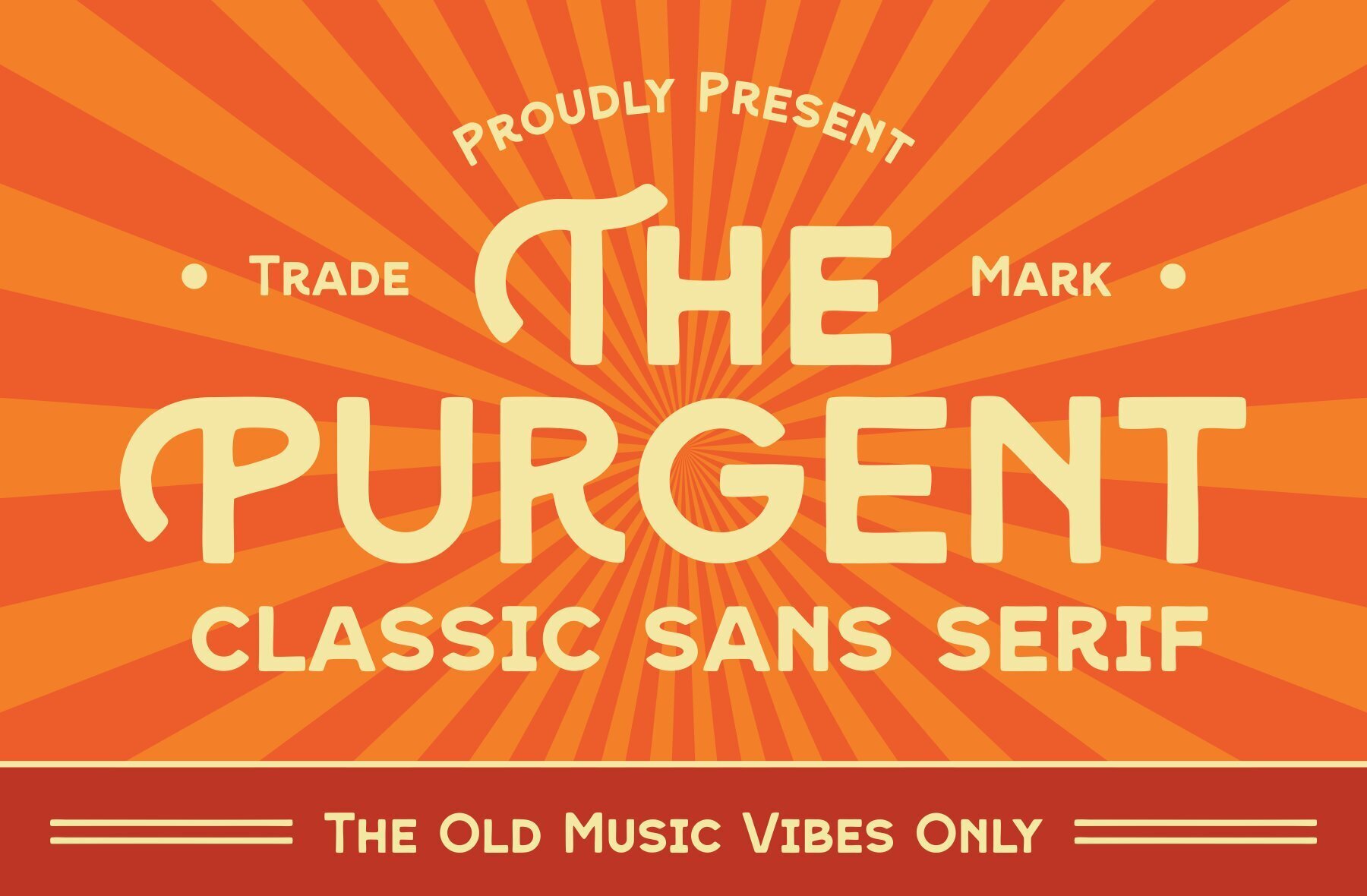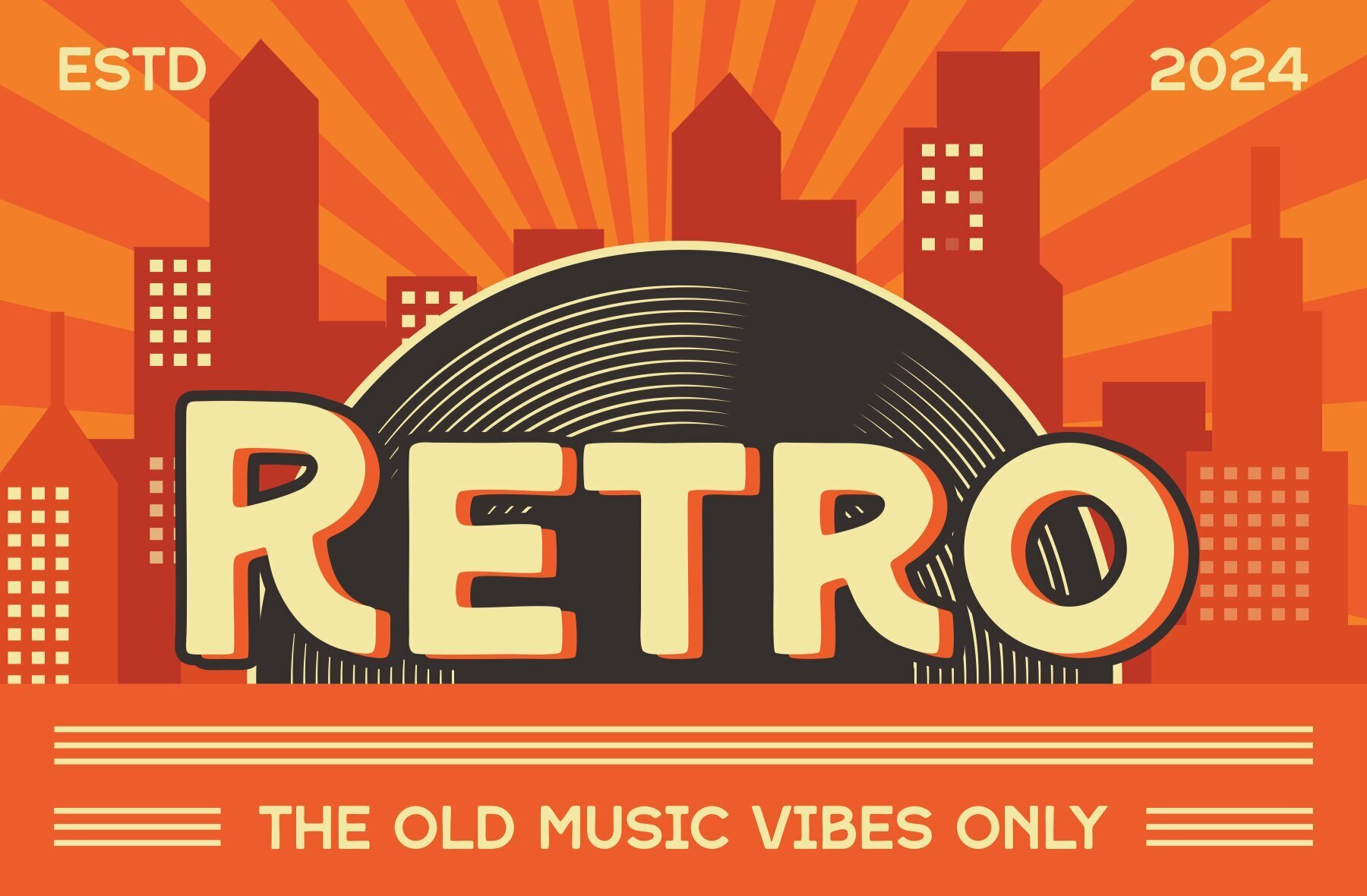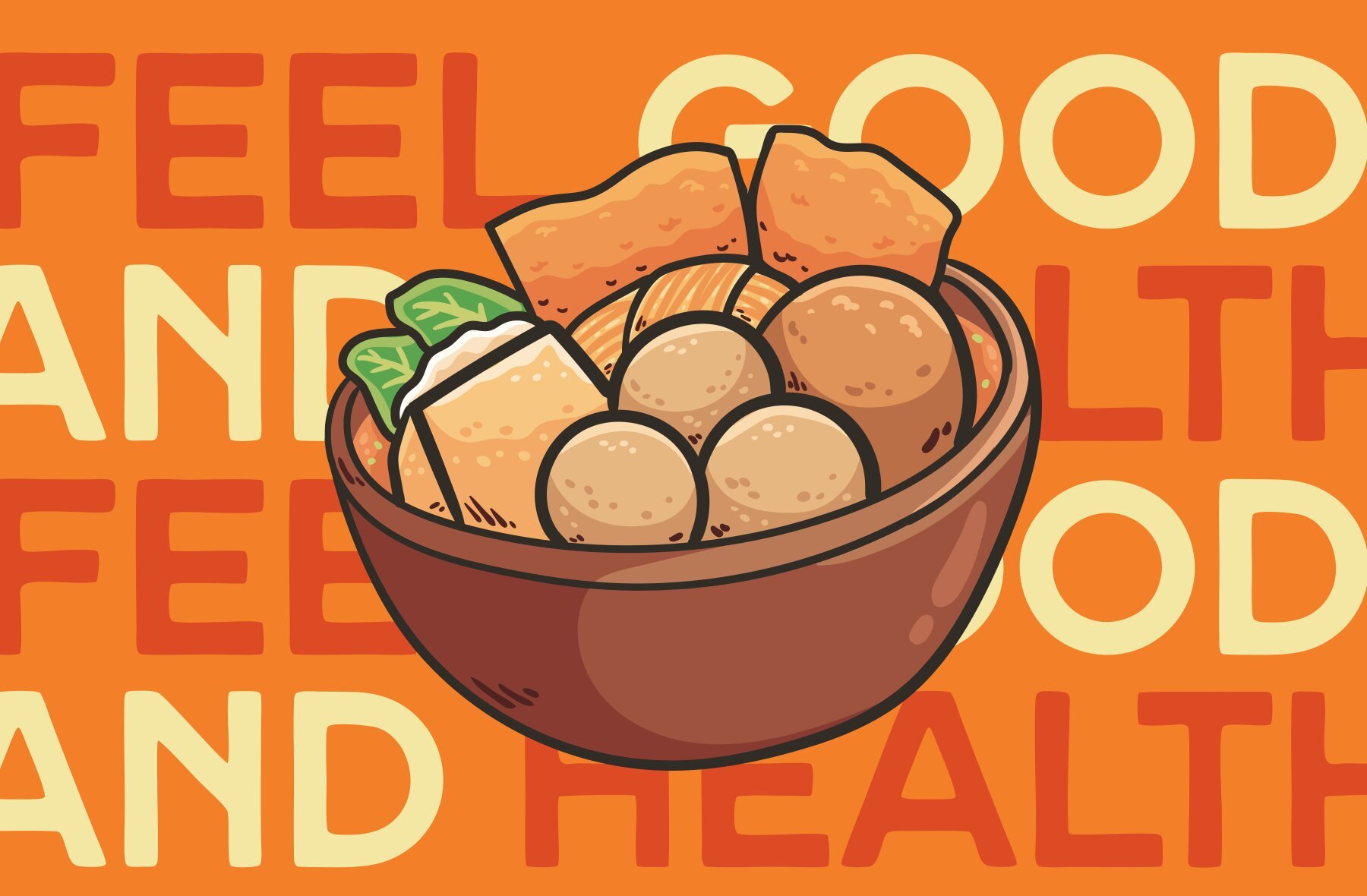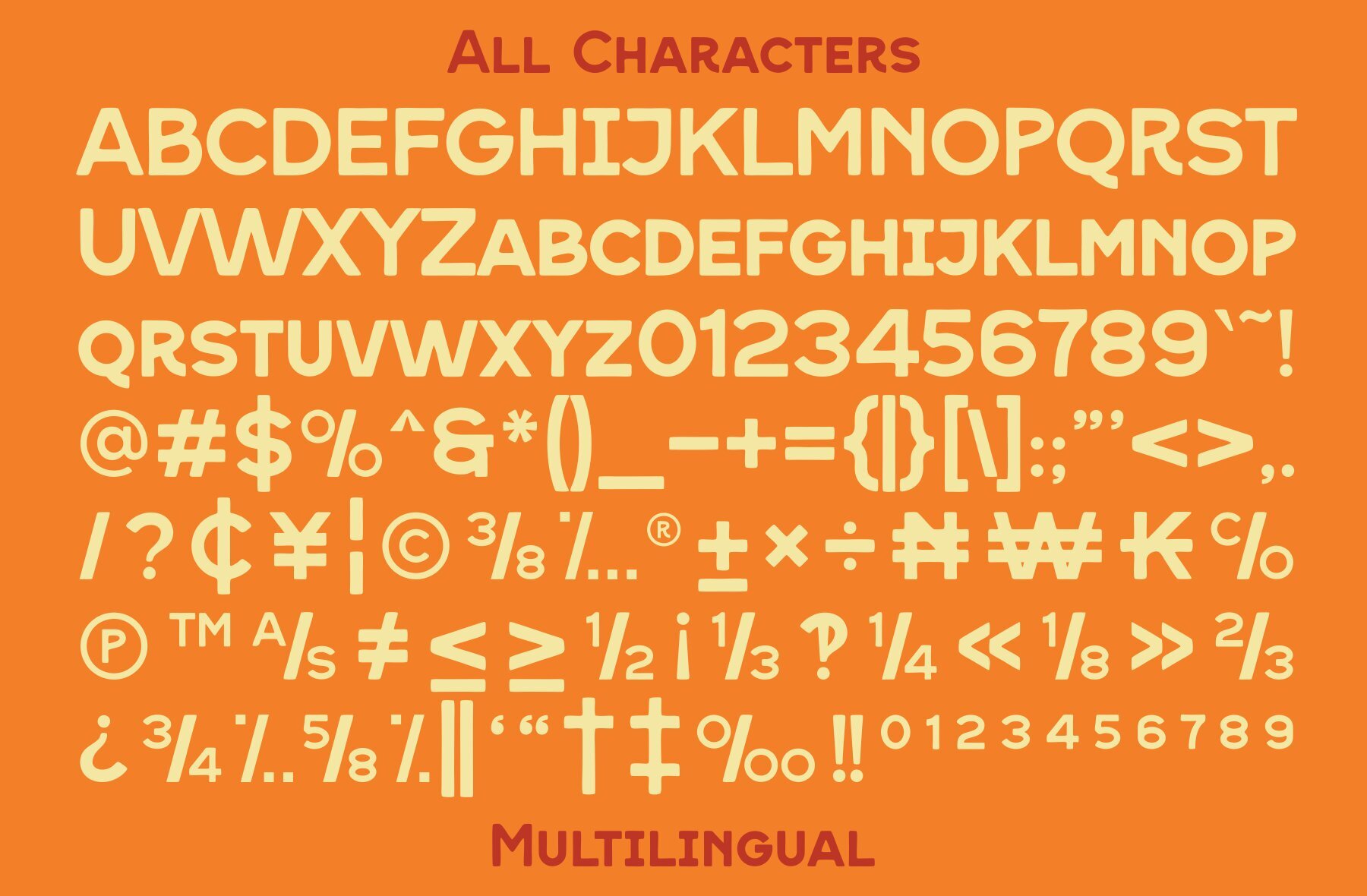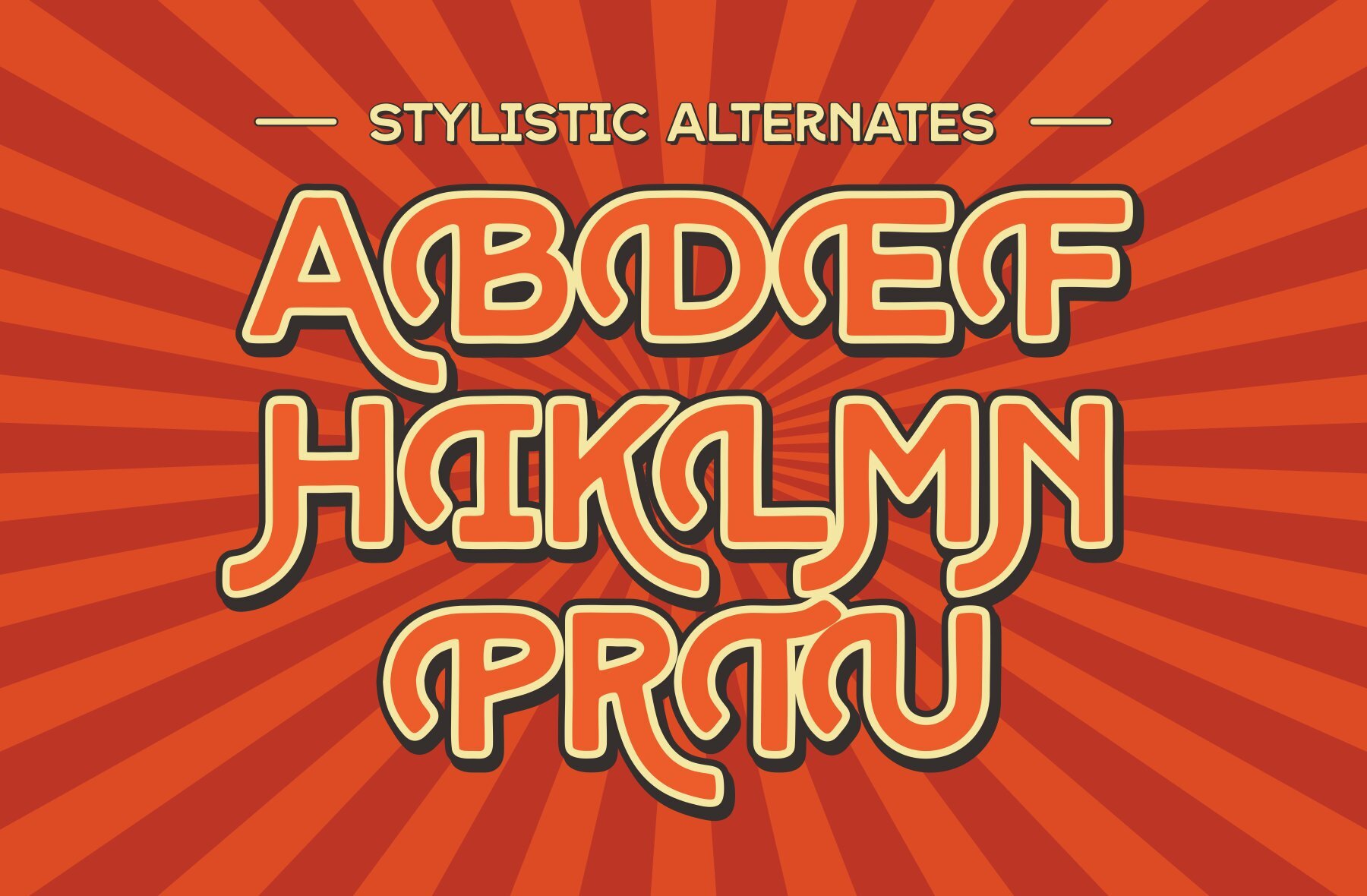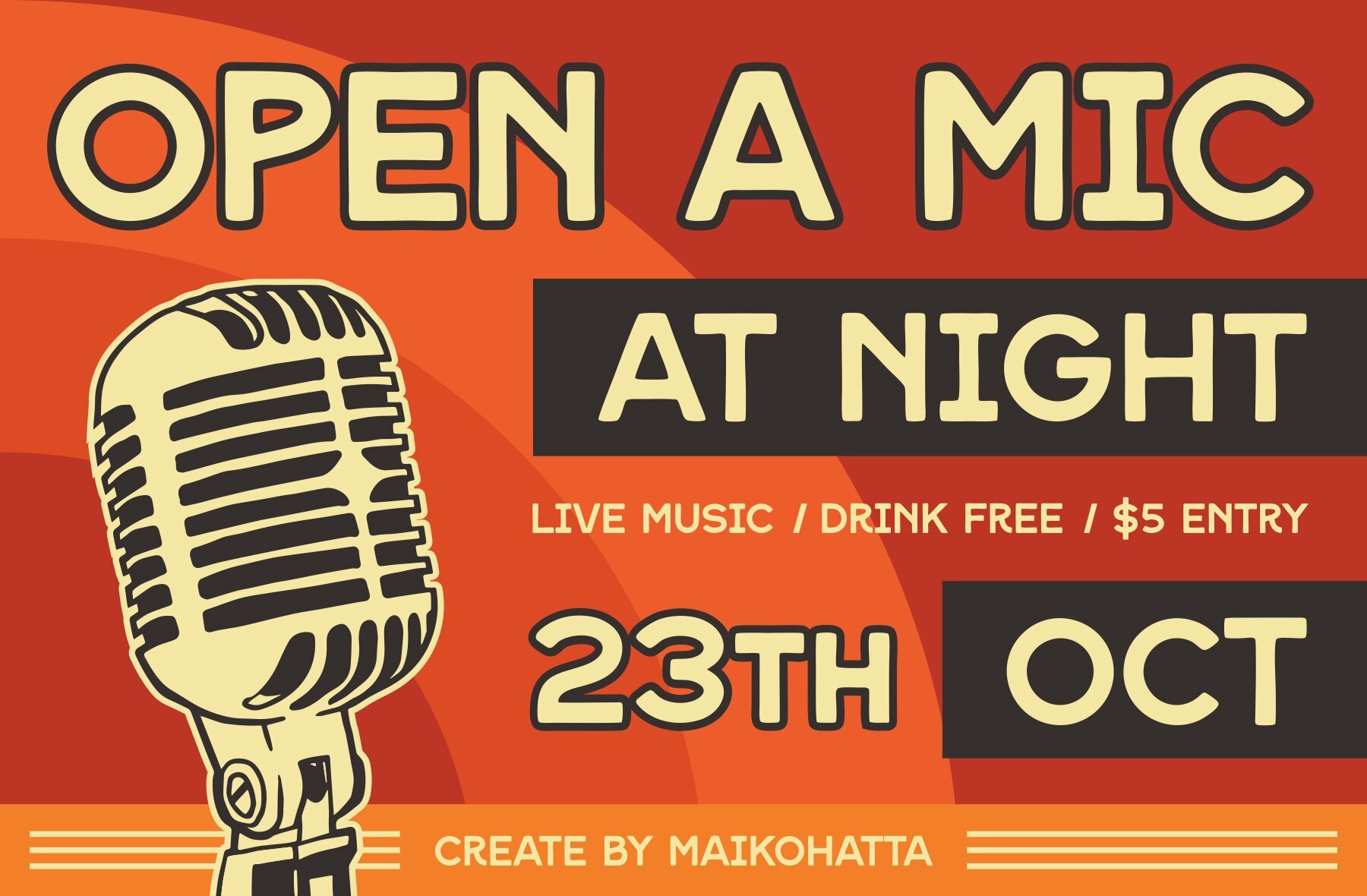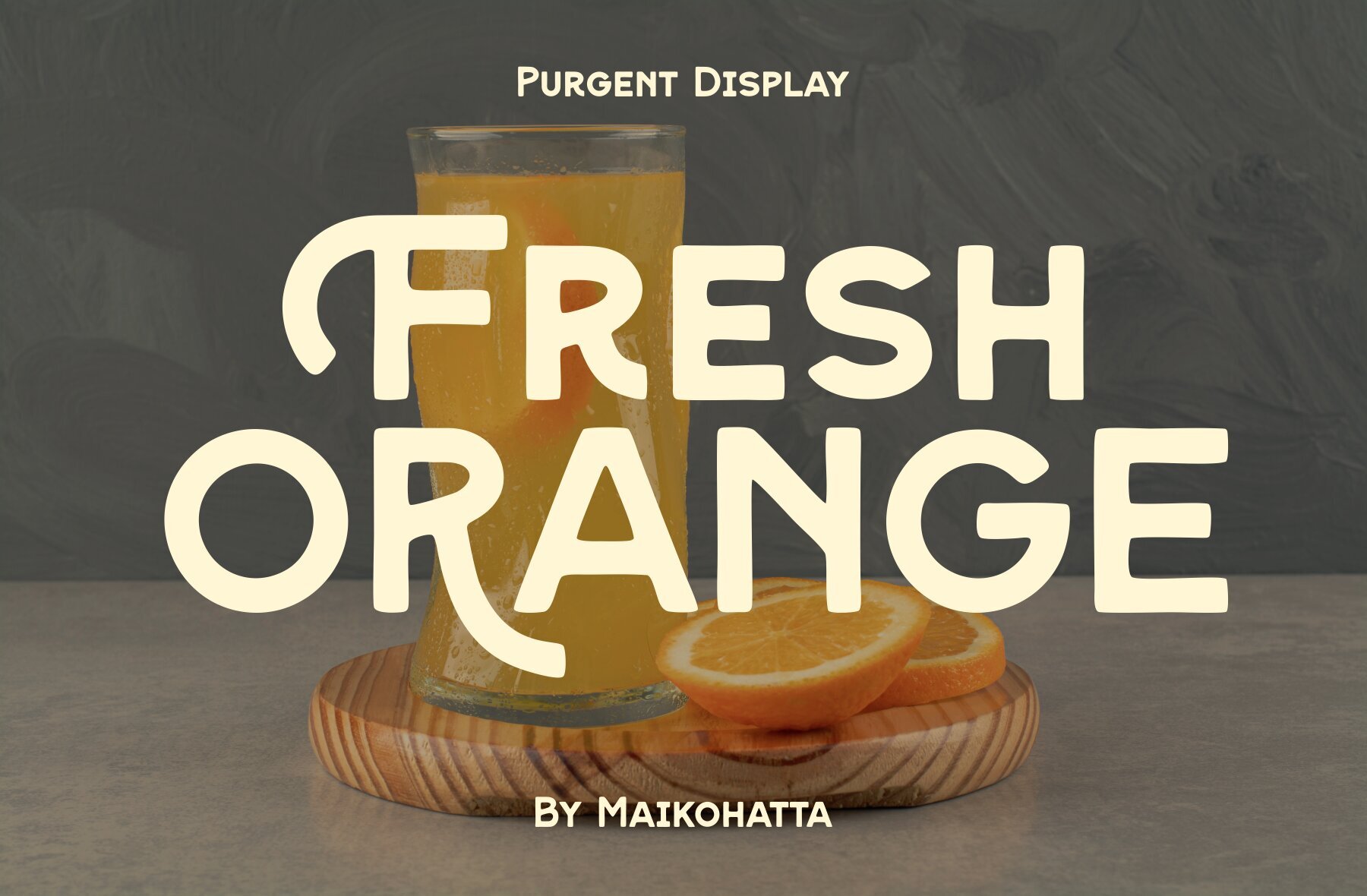
Purgent Font
Purgent Regular
Purgent is a robust and classic Sans Serif font that stands out with its bold and authentic design. This display font is ideal for various branding projects, making it a versatile choice for logos, template designs, and esports applications. Its clean lines and authoritative presence ensure that it makes a strong impact in numerous contexts.
This font’s adaptability allows it to excel in a wide range of uses, from professional branding initiatives to creative designs. Whether you're working on a corporate logo, a stylish template, or dynamic esports branding, Purgent delivers a strong, polished look that commands attention.